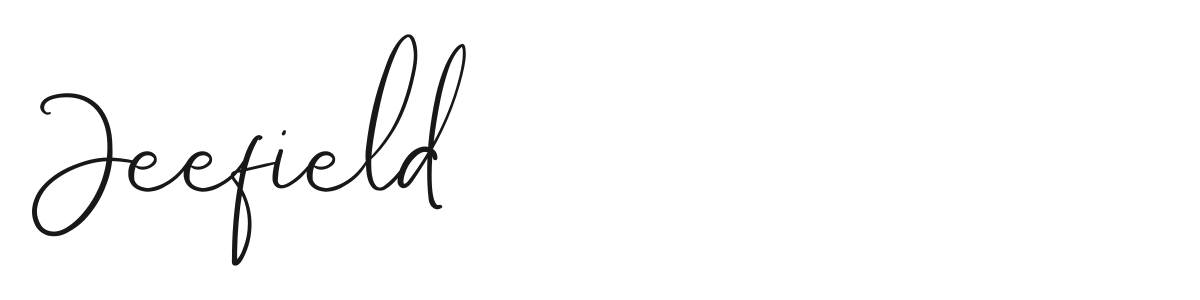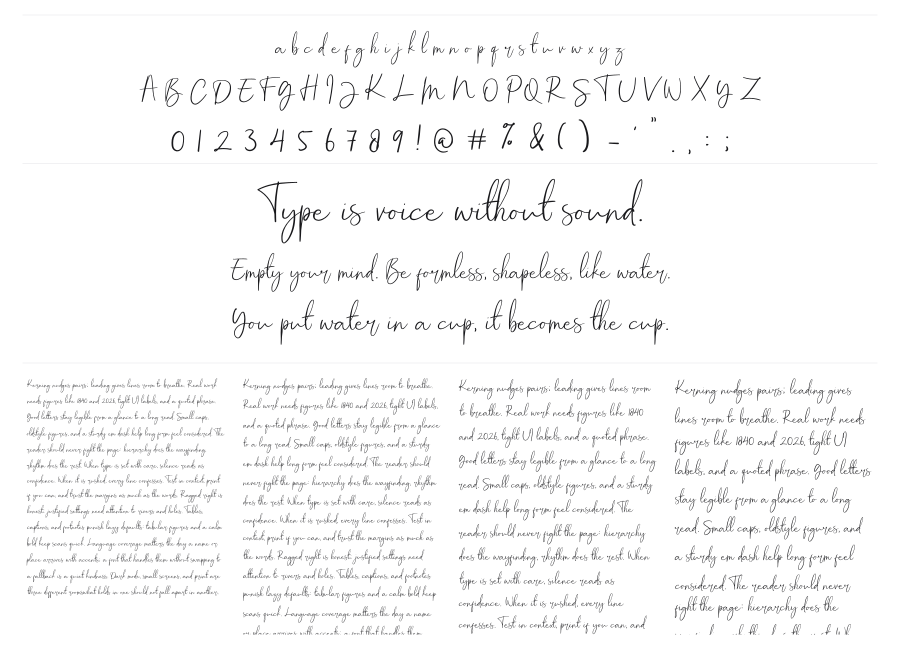
Jeefield
Jeefield is a light, flowing casual script with looping ascenders and a delicate hairline weight throughout. The connected letters move with a natural, relaxed rhythm that sits somewhere between handwritten and calligraphic. It suits wedding stationery, beauty branding, and any project that needs a touch of soft elegance.